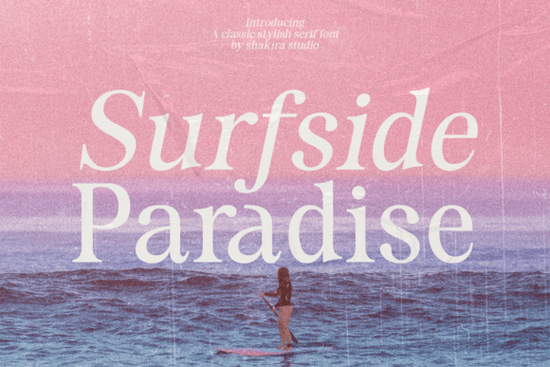
If you're looking for a serif font that blends timeless elegance with modern polish, Surfside Paradise Font is worth a closer look. Designed with luxury in mind, it works beautifully for everything from wedding invitations to boutique branding anywhere you want your typography to feel refined but not overly ornate.
Serif fonts like this one carry an inherent sense of tradition and trustworthiness, which is why they remain popular across print and digital media. What sets Surfside Paradise apart is its clean lines and subtle detailing, giving it just enough character without overwhelming your layout. Whether you’re designing a high-end product label or a minimalist editorial spread, this font adds sophistication without shouting for attention.
When should you use Surfside Paradise?
This font shines in projects where tone and texture matter:
- Luxury branding – Think skincare lines, boutique hotels, or artisanal goods.
- Editorial design – Magazine headlines, feature articles, or book covers benefit from its graceful proportions.
- Special event stationery – Wedding invites, anniversary announcements, or upscale menus.
- Print-on-demand products – Mugs, posters, or apparel where typography is the focal point.
Because it’s a display serif (not meant for body text), keep usage focused on headings, logos, or short phrases. Pairing it with a neutral sans-serif for supporting text often creates a balanced, professional look.
How does it compare to other luxury serifs?
Not all elegant serifs are created equal. Some lean vintage, others feel starkly modern. Surfside Paradise sits comfortably in the middle classic but current.
If you’ve considered Milk and Honey, you’ll notice it has softer curves and a more handwritten feel great for romantic themes. Meanwhile, Sharp History offers sharper contrasts and a bolder presence, ideal for dramatic headlines. For something with old-world charm, Richmond Grovelyn brings Victorian-inspired details, while Strong delivers geometric precision with a contemporary edge.
Who is this font really for?
It’s especially useful if you:
- Run a small business focused on premium products or services
- Create custom invitations or greeting cards as a side hustle
- Design merch for platforms like Etsy, Redbubble, or Amazon Merch
- Work in editorial or publishing and need reliable display typefaces
Tips for getting the most out of it
To make Surfside Paradise truly stand out:
- Use generous spacing. Let the letters breathe tight kerning can crowd its delicate features.
- Stick to larger sizes. Below 18pt, fine details may get lost, especially in print.
- Limit color contrast. Deep navy, charcoal, or muted gold often complement its elegance better than bright or neon tones.
- Avoid overuse. One strong headline per layout is usually enough; let supporting text stay simple.
And remember: great typography isn’t about using the fanciest font it’s about choosing the right one for your message. Surfside Paradise excels when your goal is quiet confidence, not loud spectacle.
If your next project calls for grace without fuss, give Surfside Paradise a test run. Many users find it pairs well with clean layouts, natural textures (like linen or marble backgrounds), and minimalist photography.
With thoughtful application, this font can become a go-to in your creative toolkit not because it’s flashy, but because it simply works.